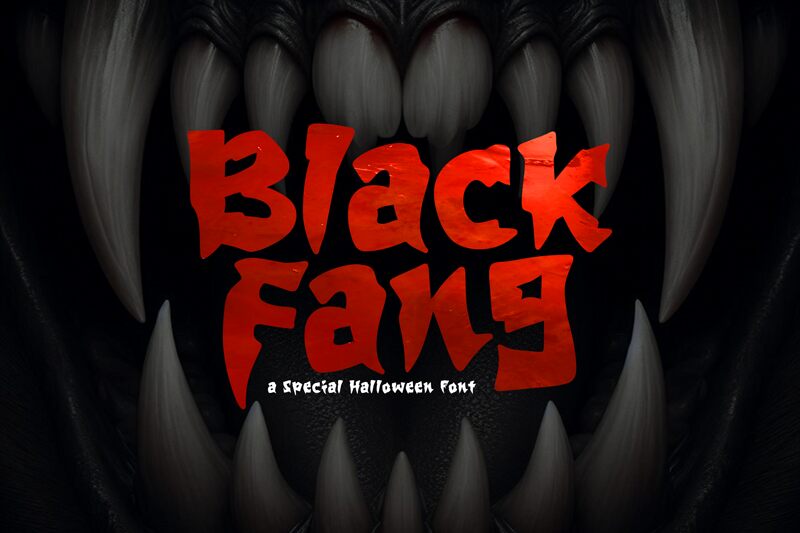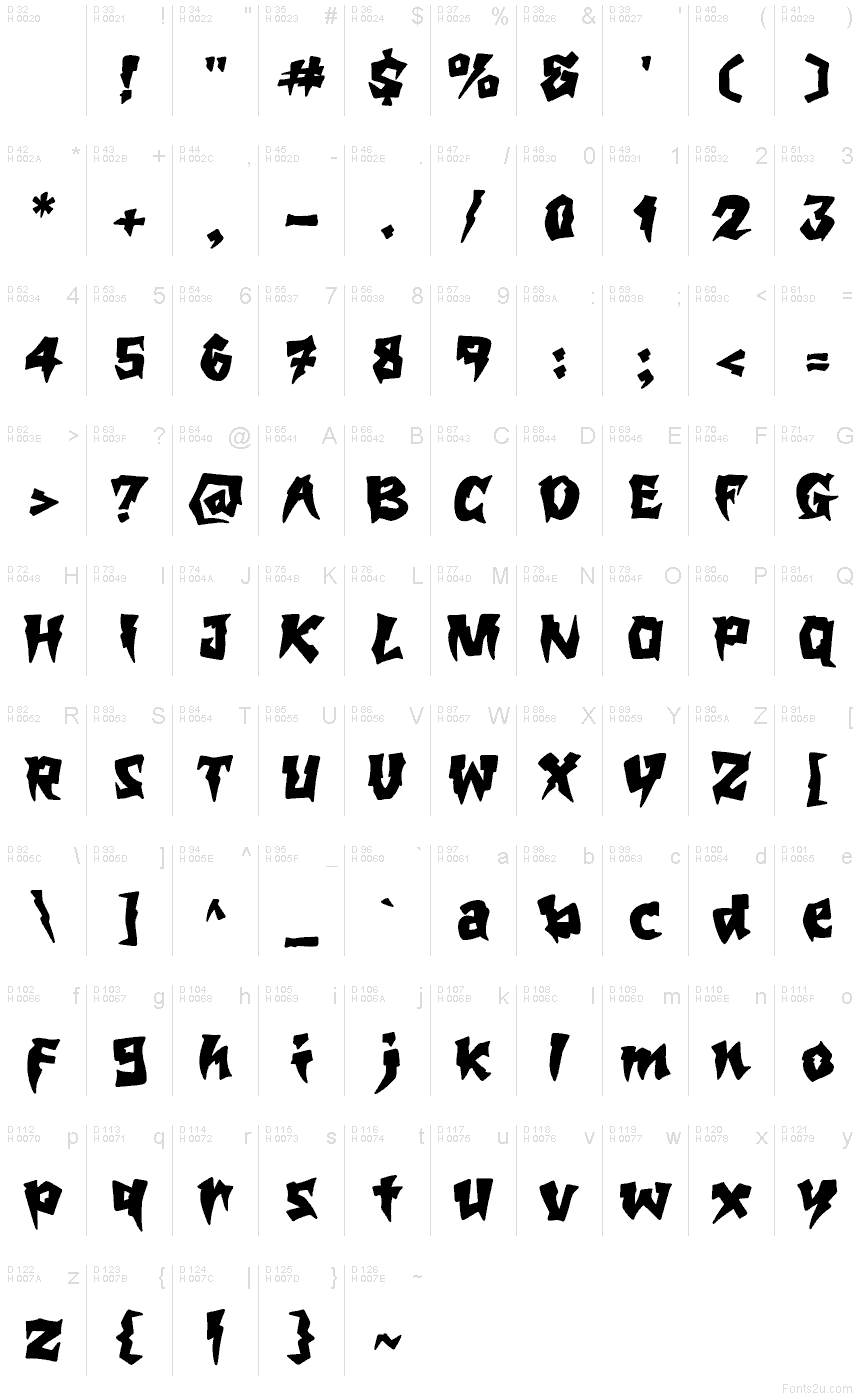
Blackfang
Blackfang font by Khurasan is a free scary display typeface that looks like it’s been clawed straight out of a horror poster. Thick, inky strokes twist into jagged points, with each letter feeling slightly warped and feral, as if it might lunge off the page. The uneven rhythm and heavy, splattered texture give Blackfang a raw, hand-drawn menace that’s bold enough to command attention even on a crowded layout.
Using Blackfang, your headlines instantly pick up a haunted, chaotic energy that’s made for Halloween events, horror movie titles, metal band logos, escape room branding, creepy book covers, and spooky social media graphics. This free font thrives at large sizes where its rough edges and sharp hooks stay crisp and readable. Pair it with a clean, neutral sans serif in small text to keep everything legible while letting Blackfang growl in the spotlight.